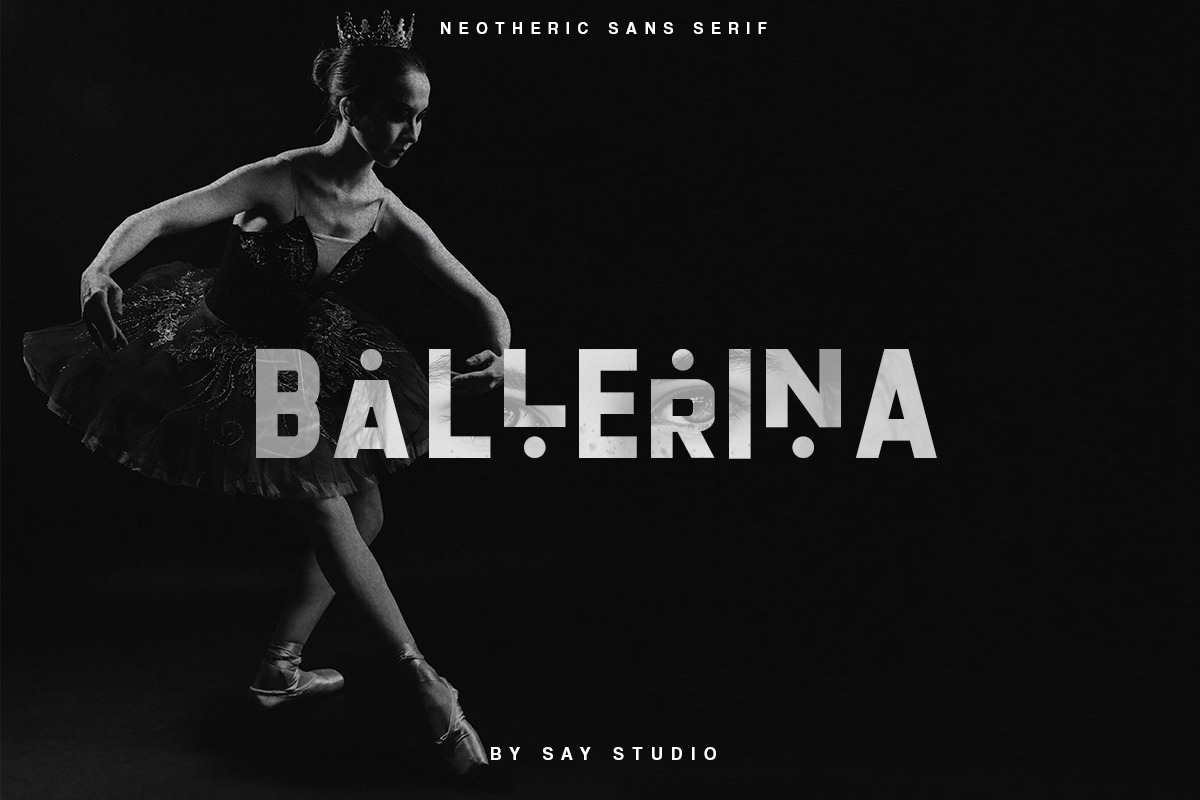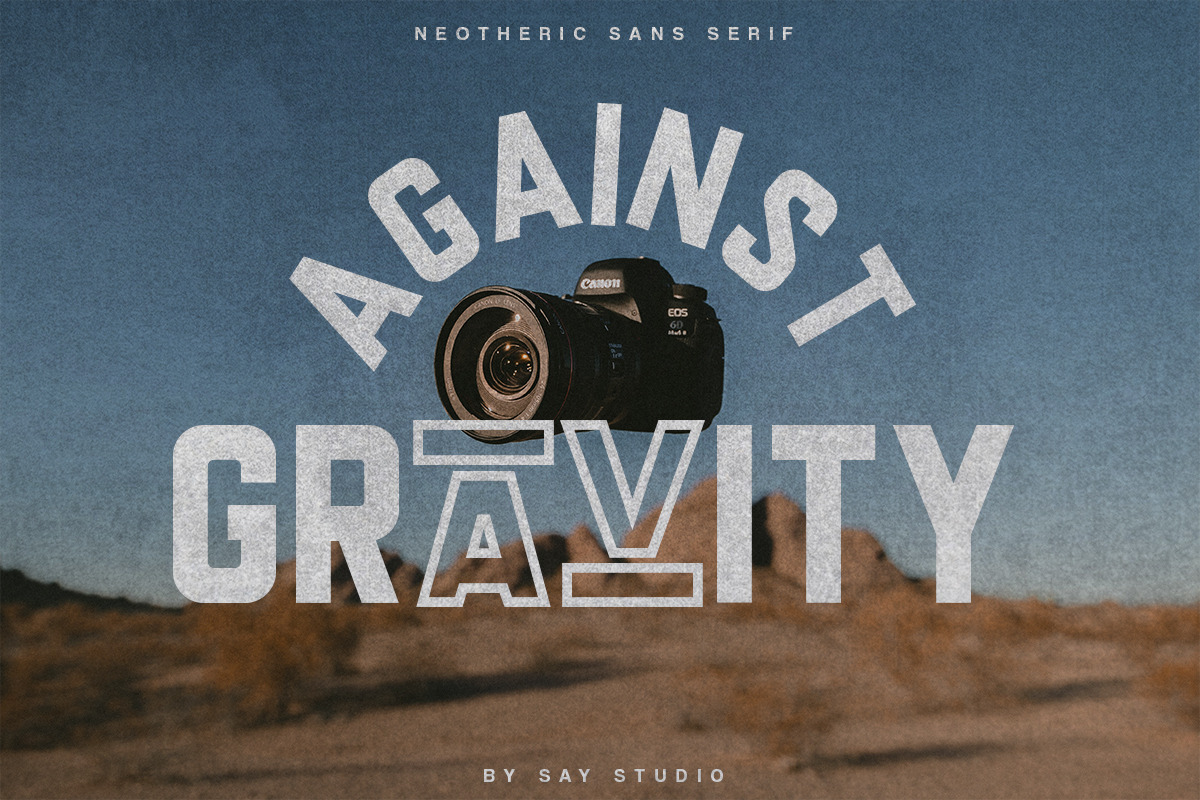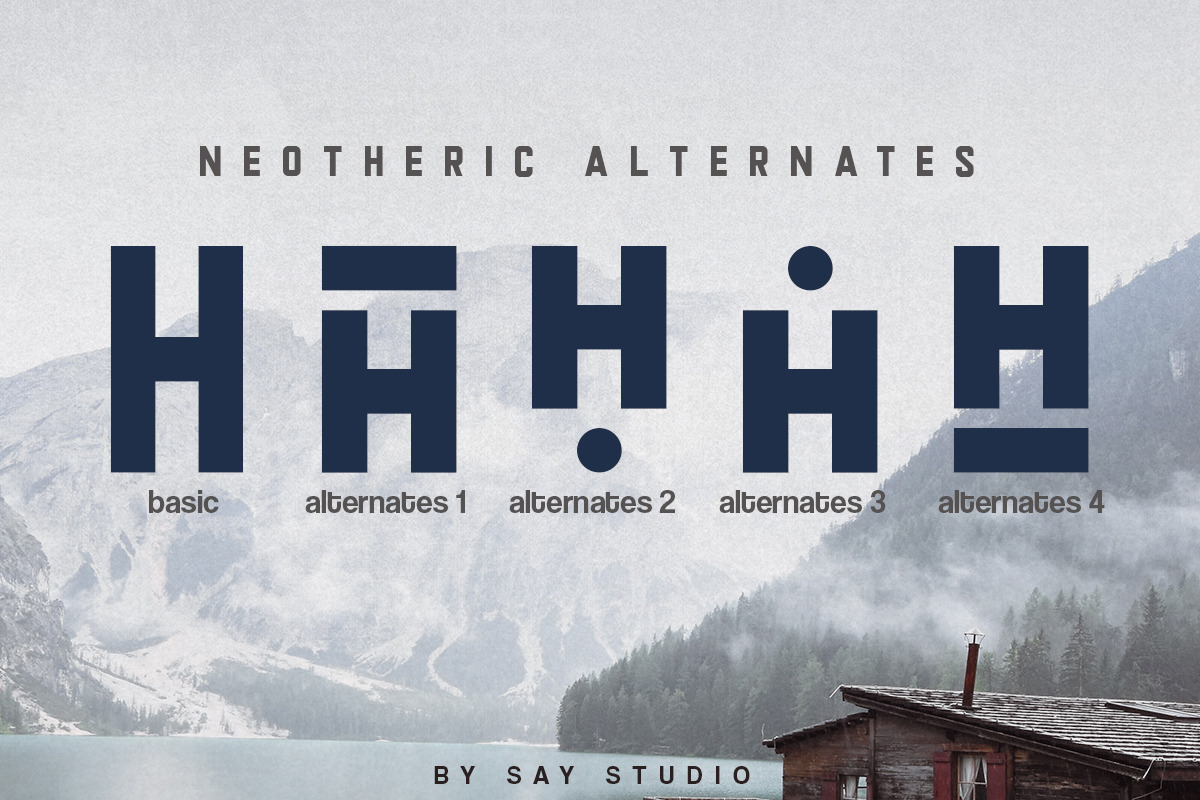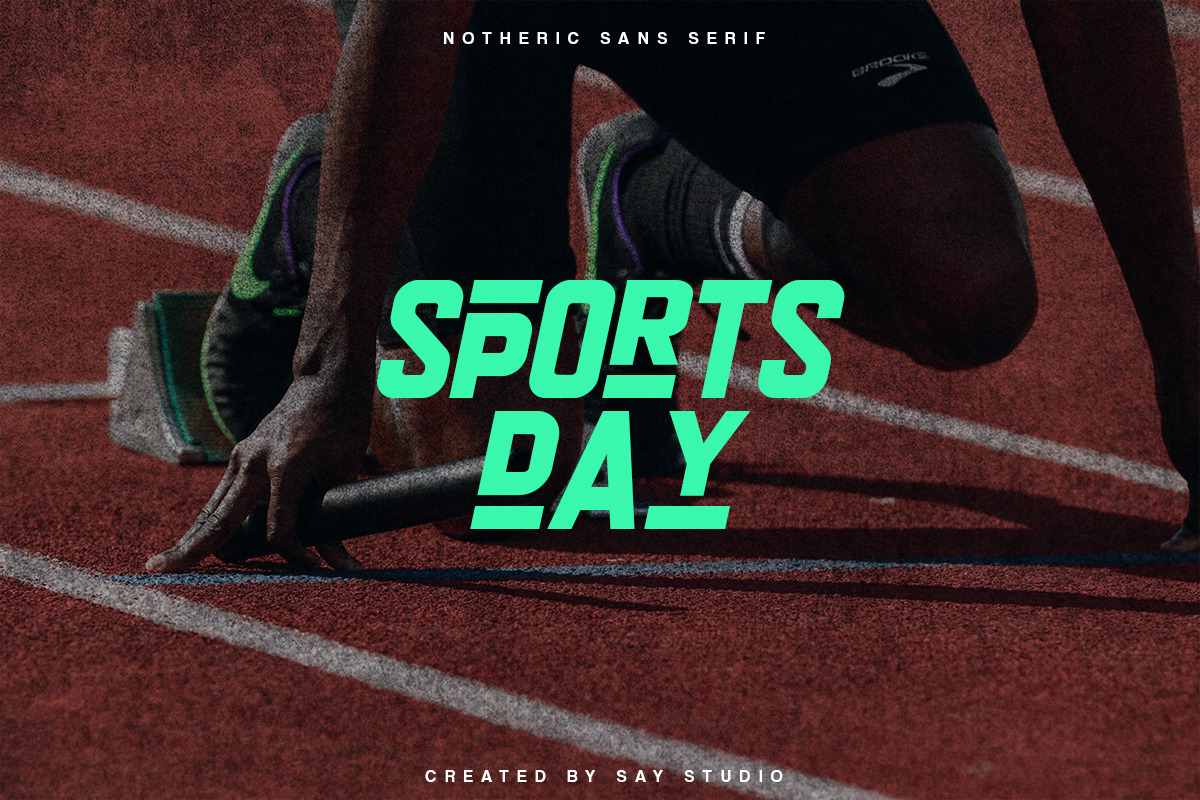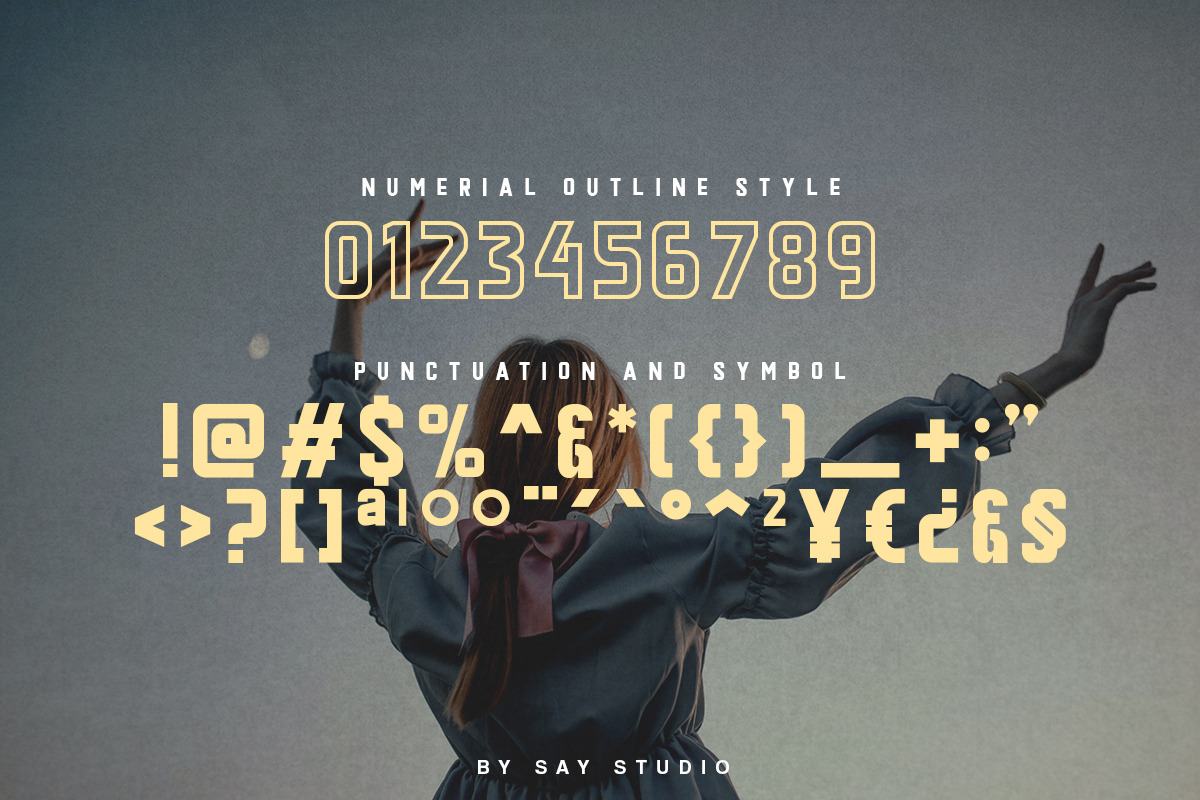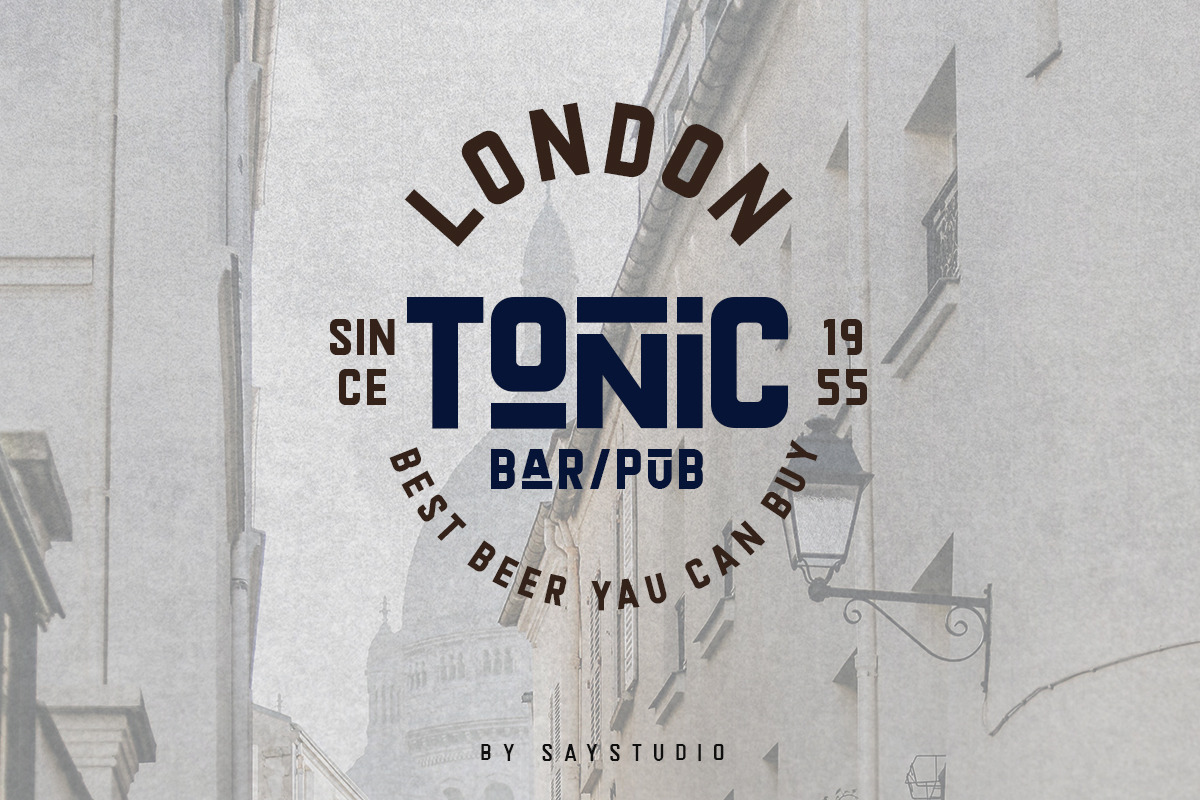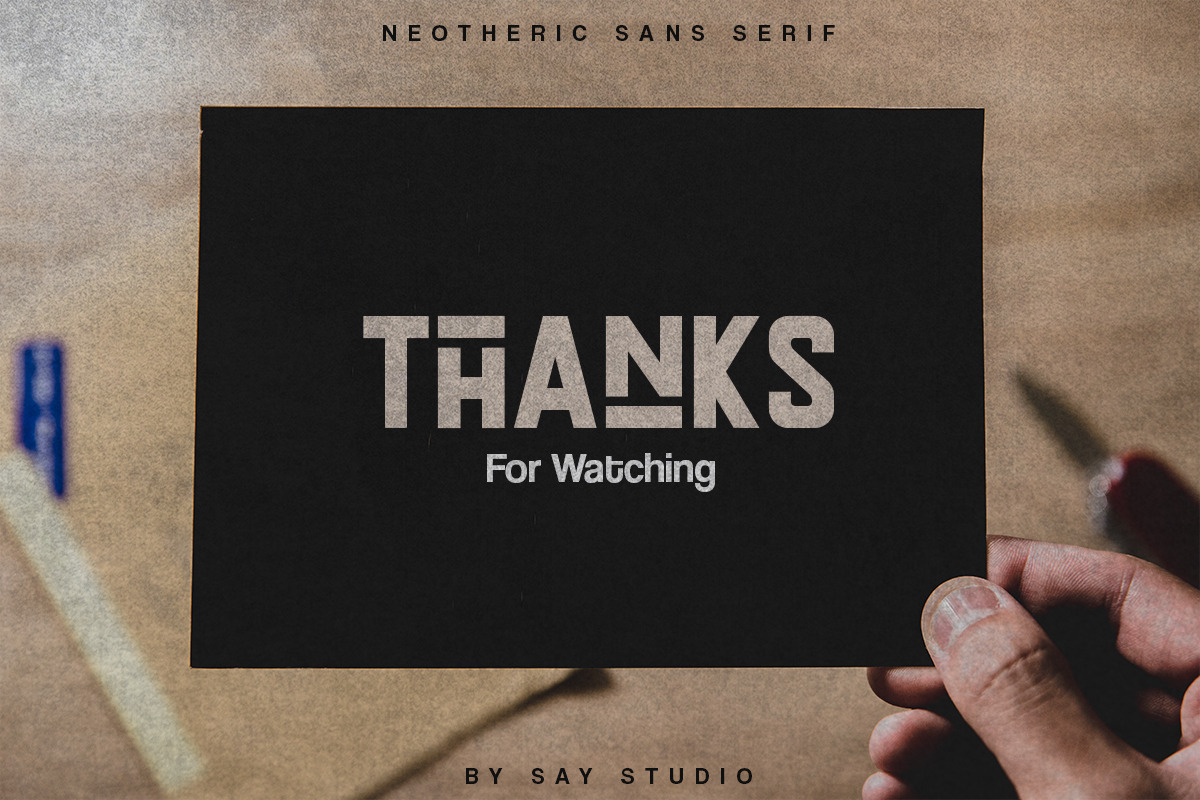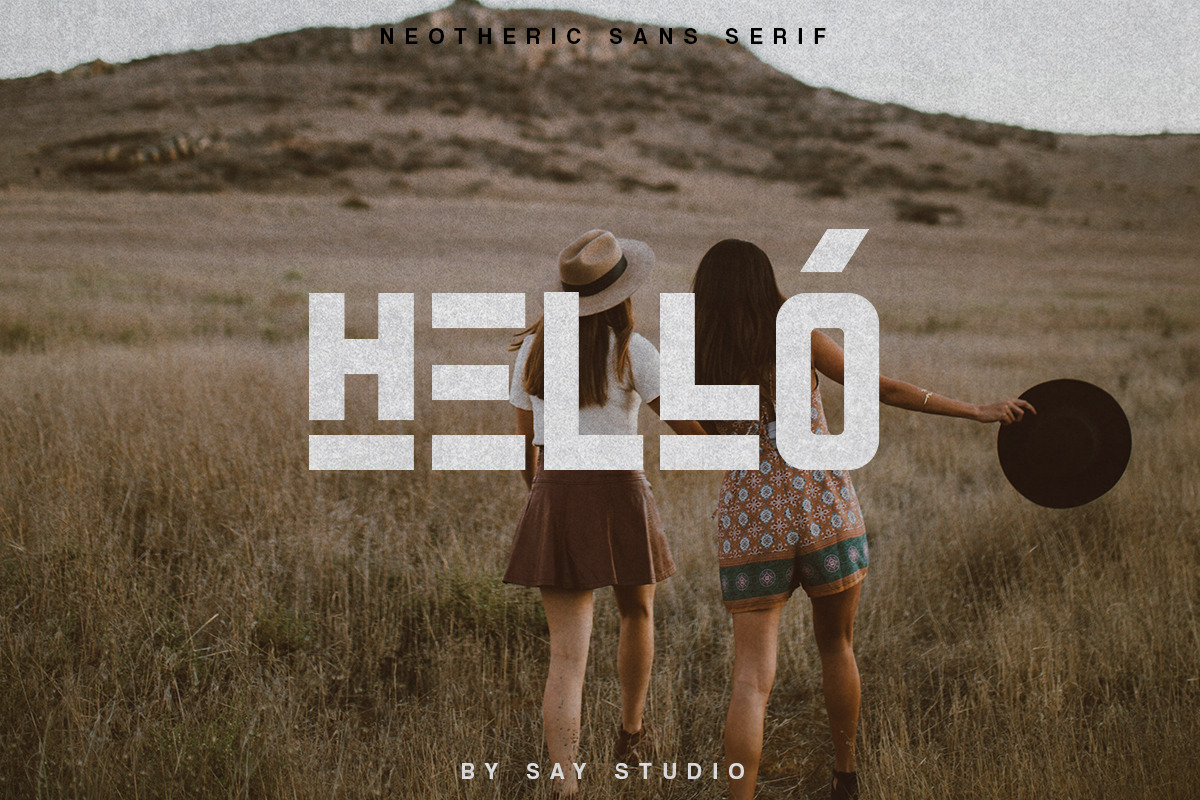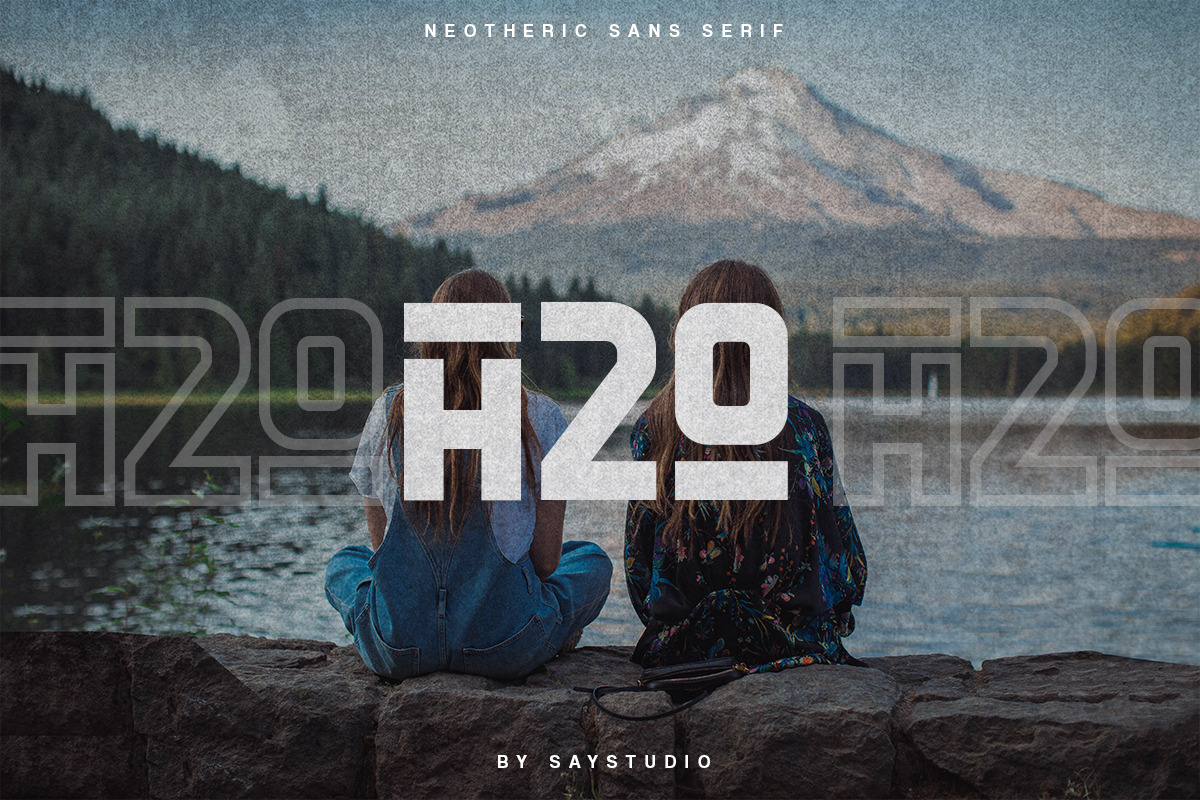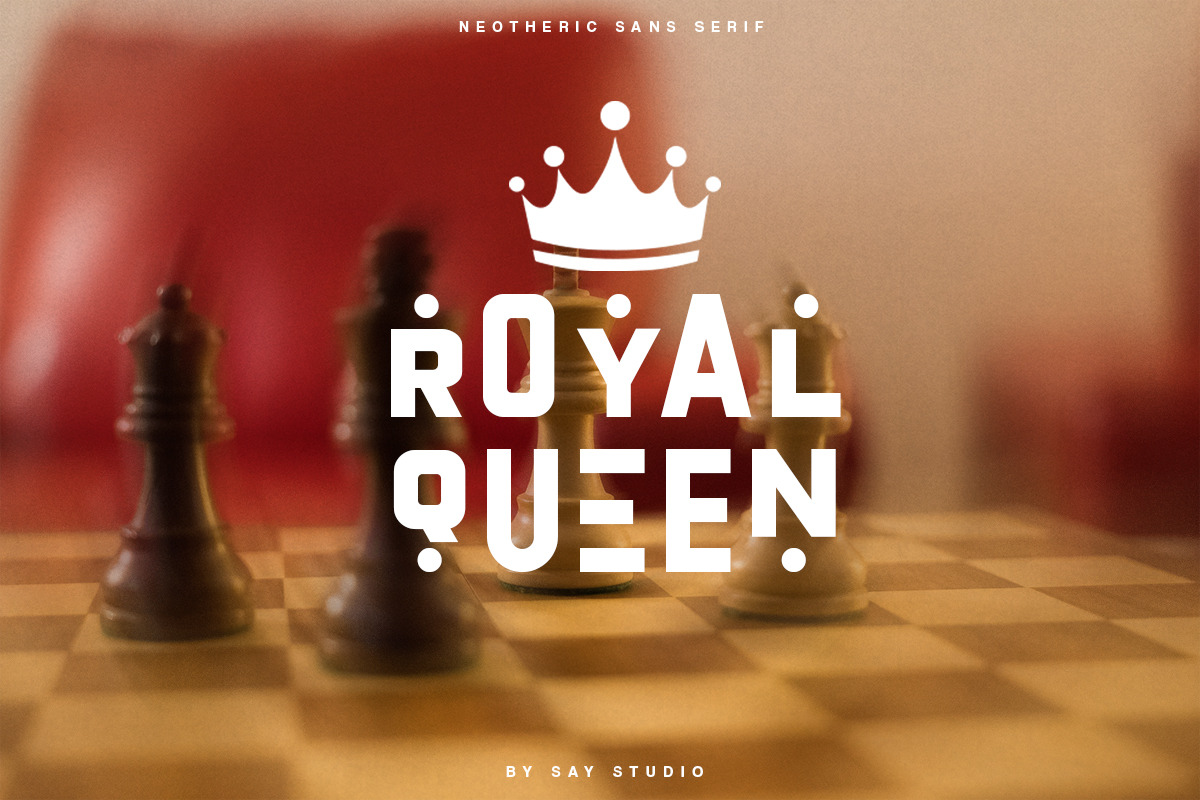
Neotheric - Strong Sans Serif
Neotheric
is a powerful and sophisticated sans serif font family. And has 4 alternates type models that you can use according to your needs. That uncompromising sturdy style is felt through controlled letterforms and a modern twist. Balance of hard lines and smooth curves. Each font in the family is standalone, dynamic and authoritative in its own right.
Neotheric includes style 6 along with some optional alternates
USE Neotheric works great in every branding, logo, magazine, movie. Different weights give you full range to explore a whole host of apps, while outlined fonts give any project a real modern feel.